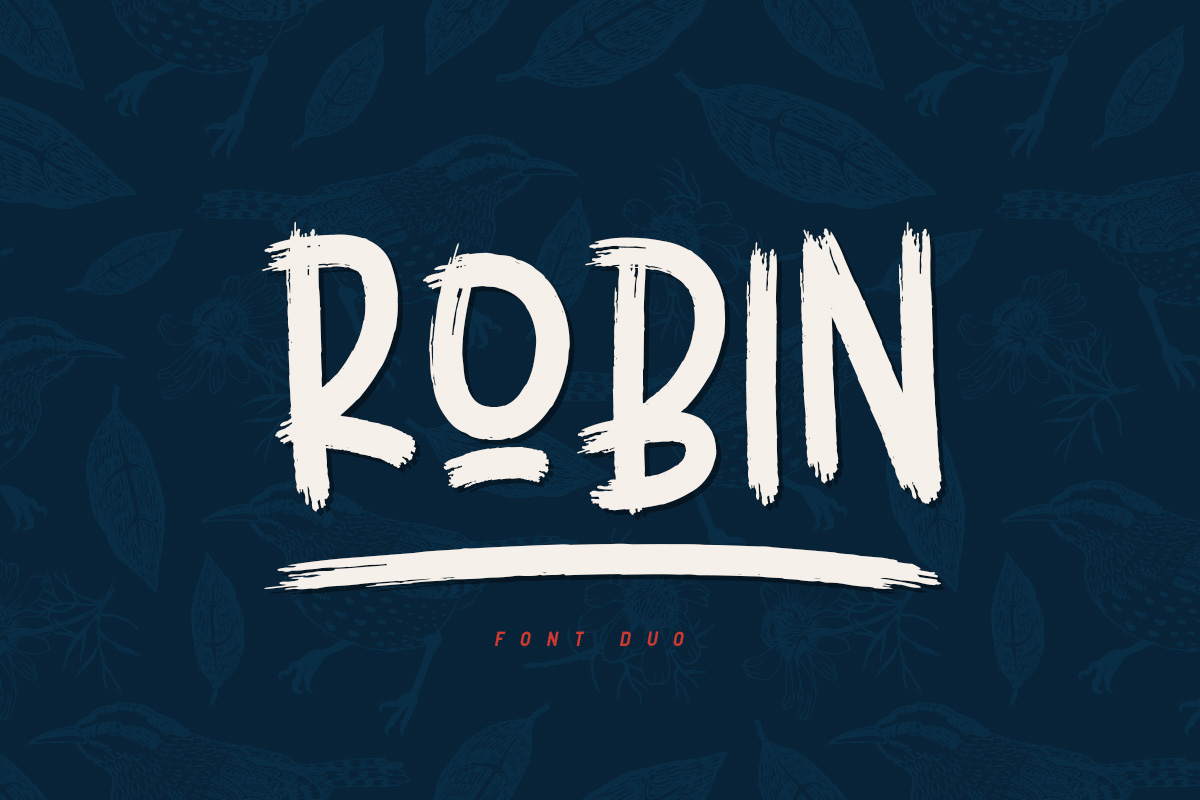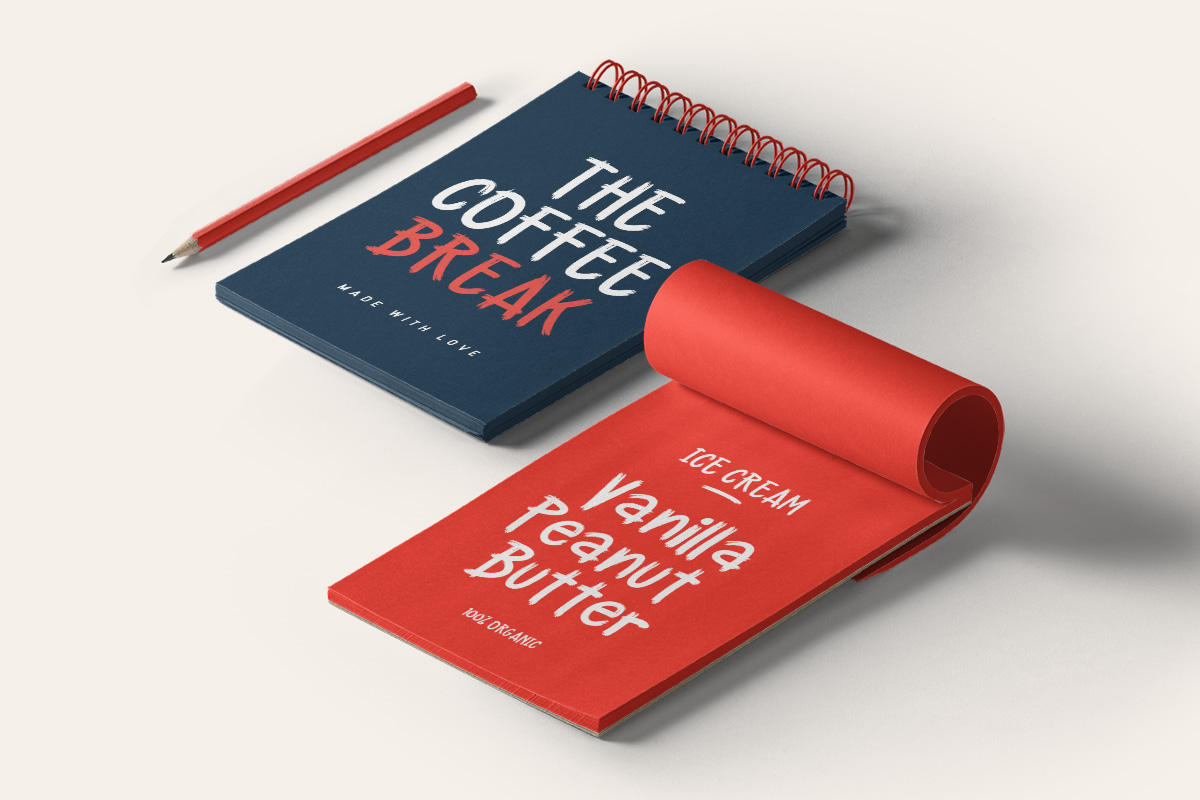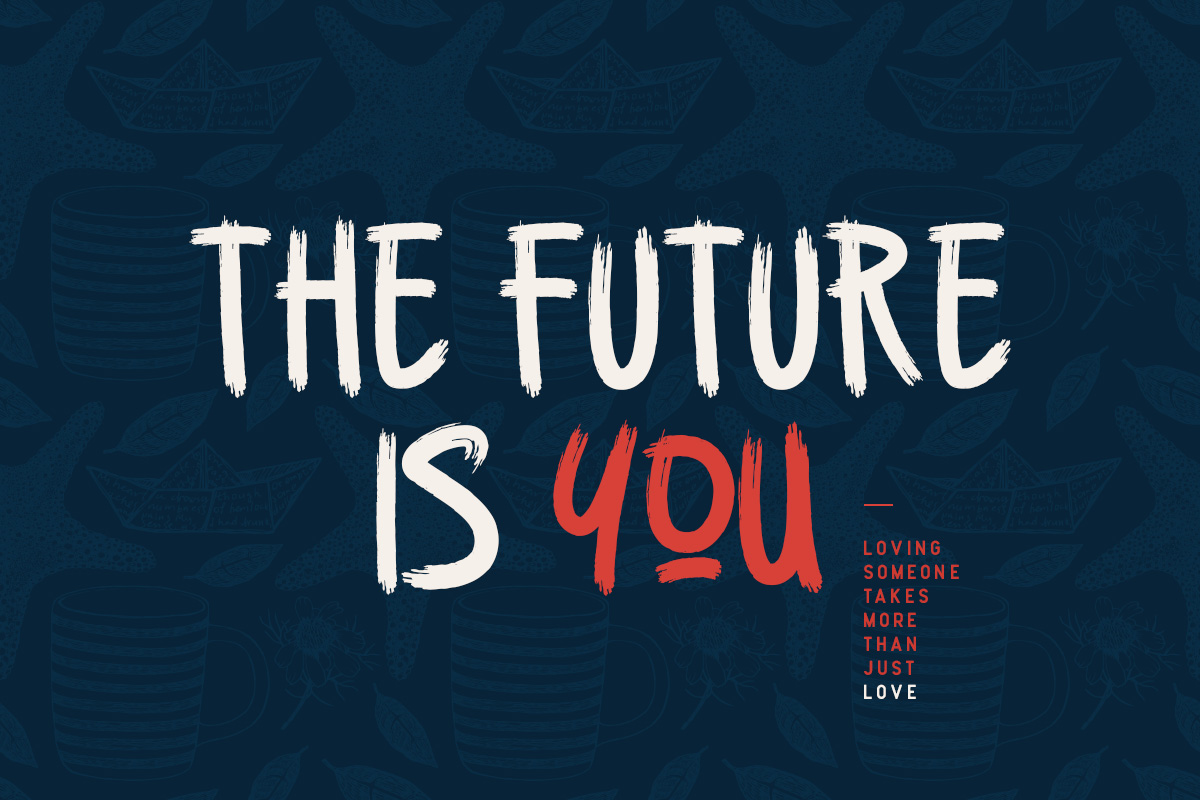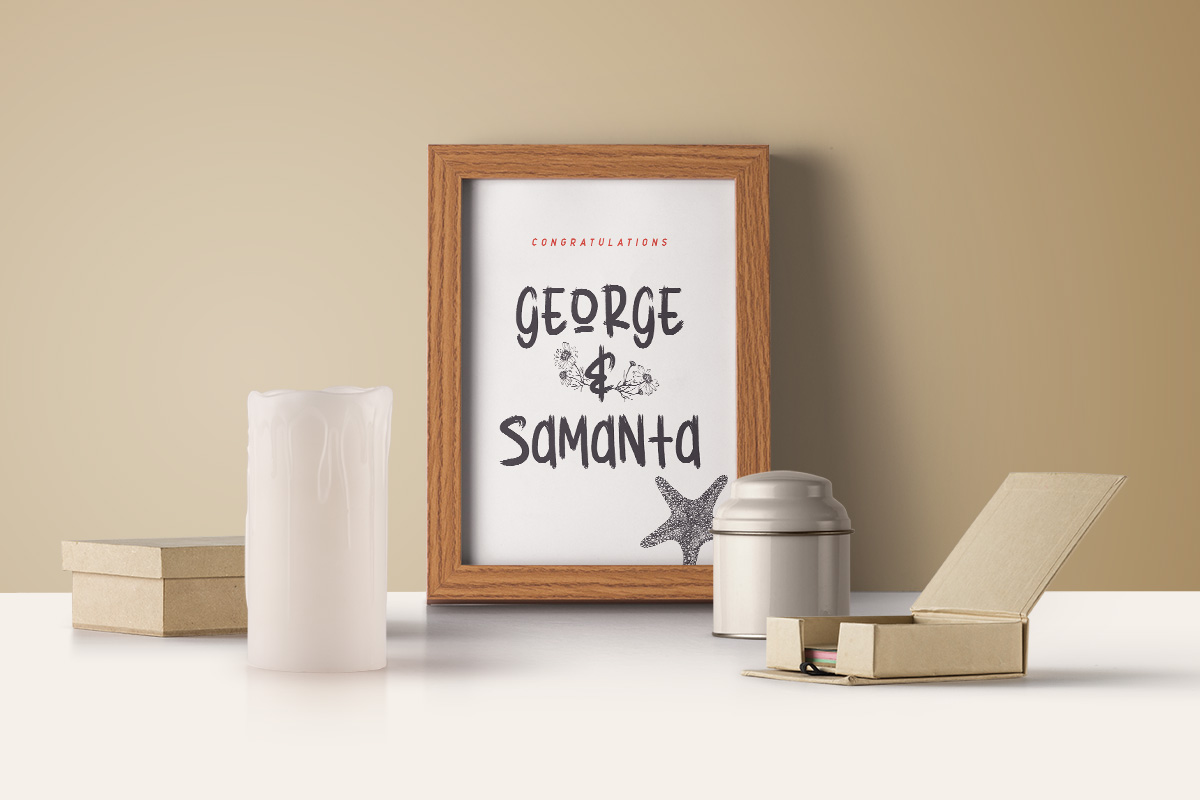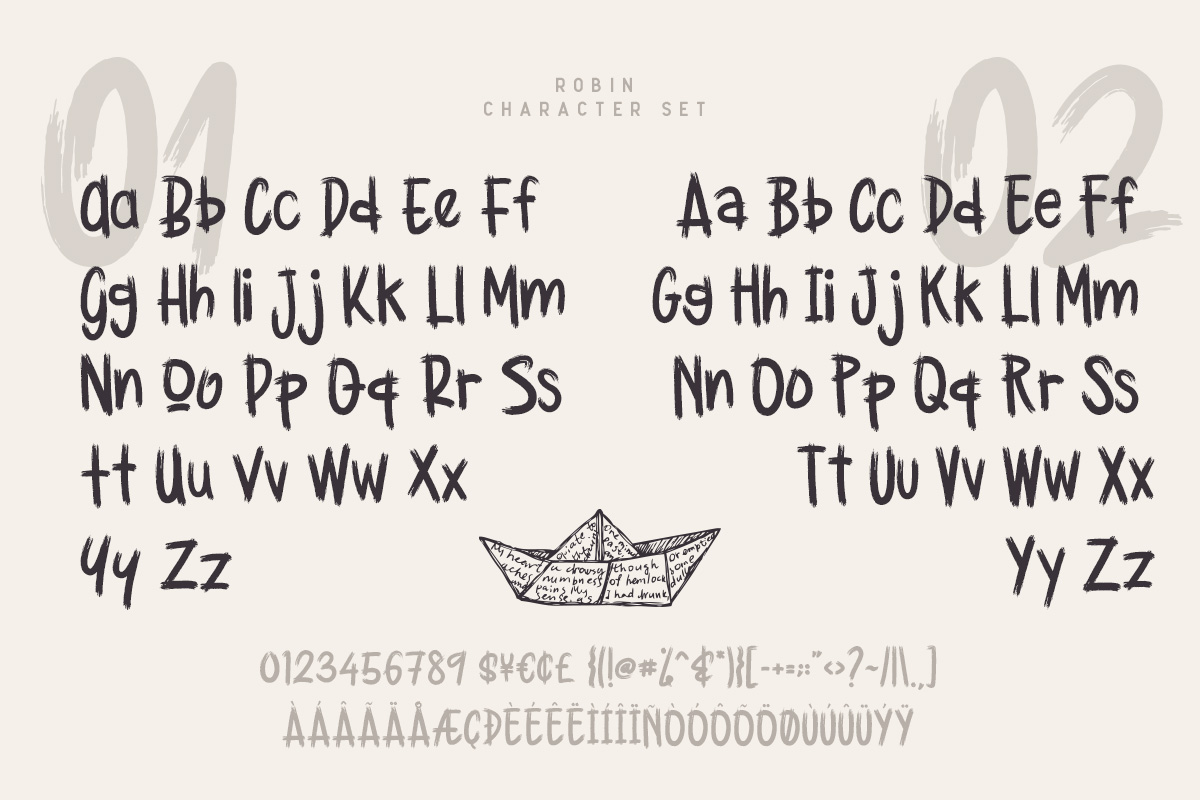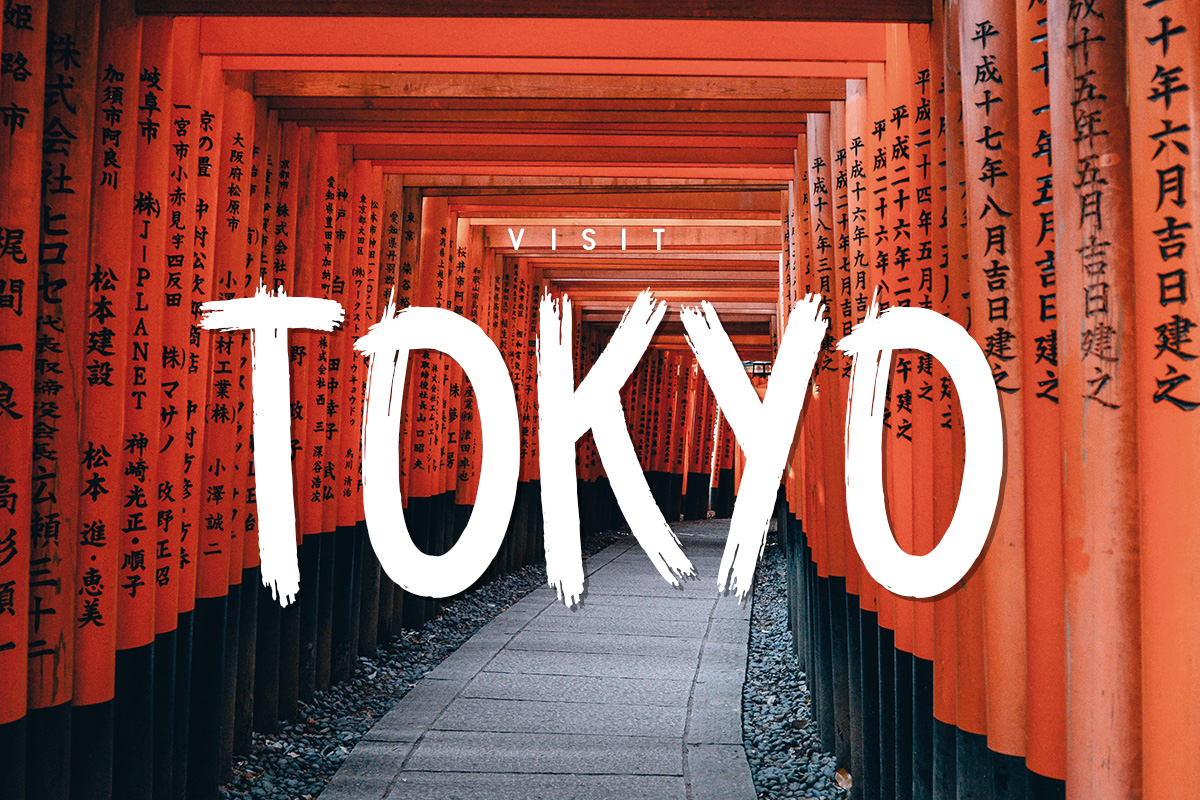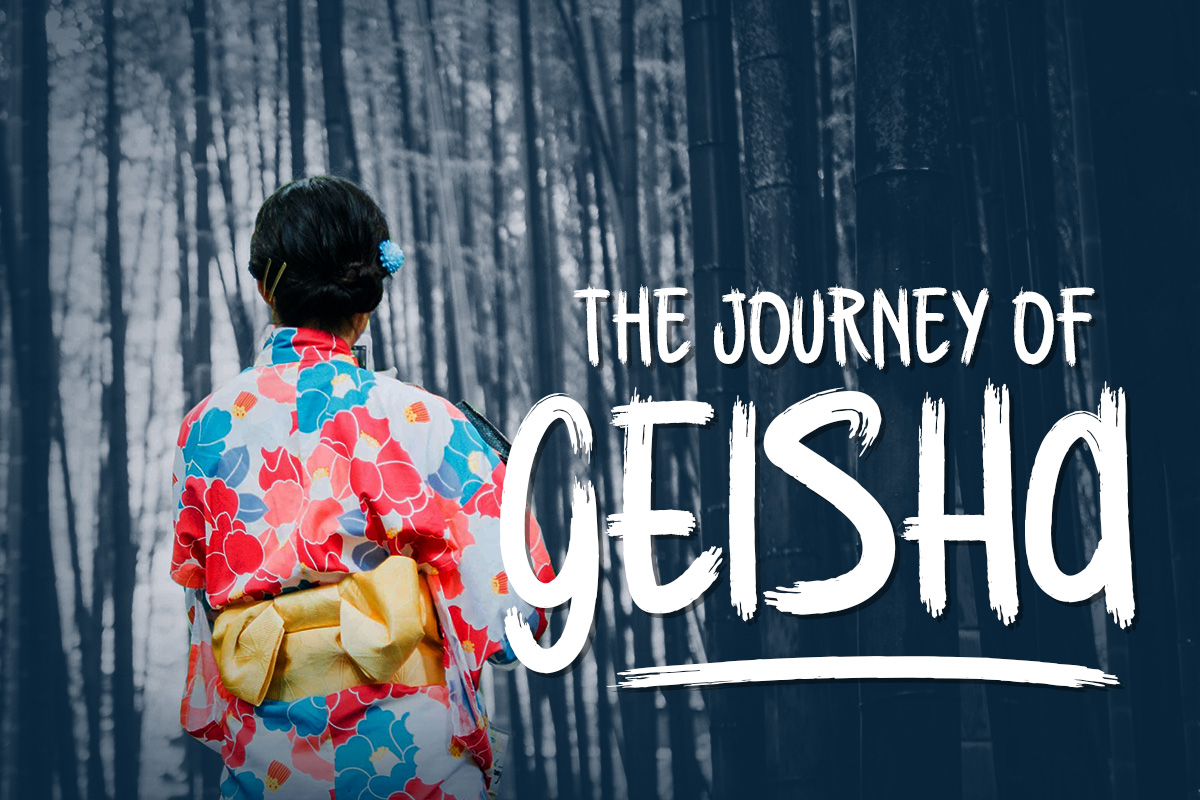
Robin Font
About Robin Font
Robin is a hand drawn brush font that is bold, dynamic and crafted with exceptional taste. This font functions well as a display typeface, and can add depth and style to all your designs.